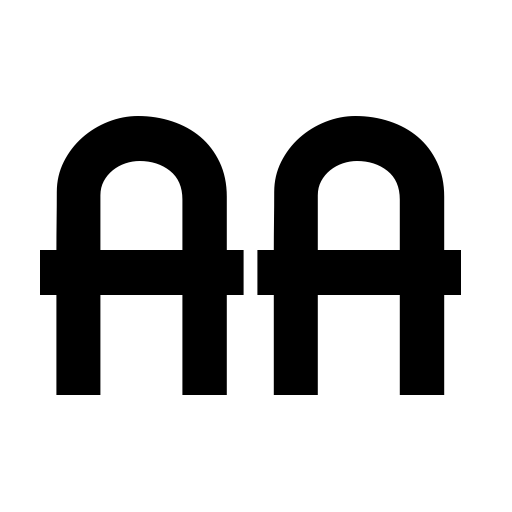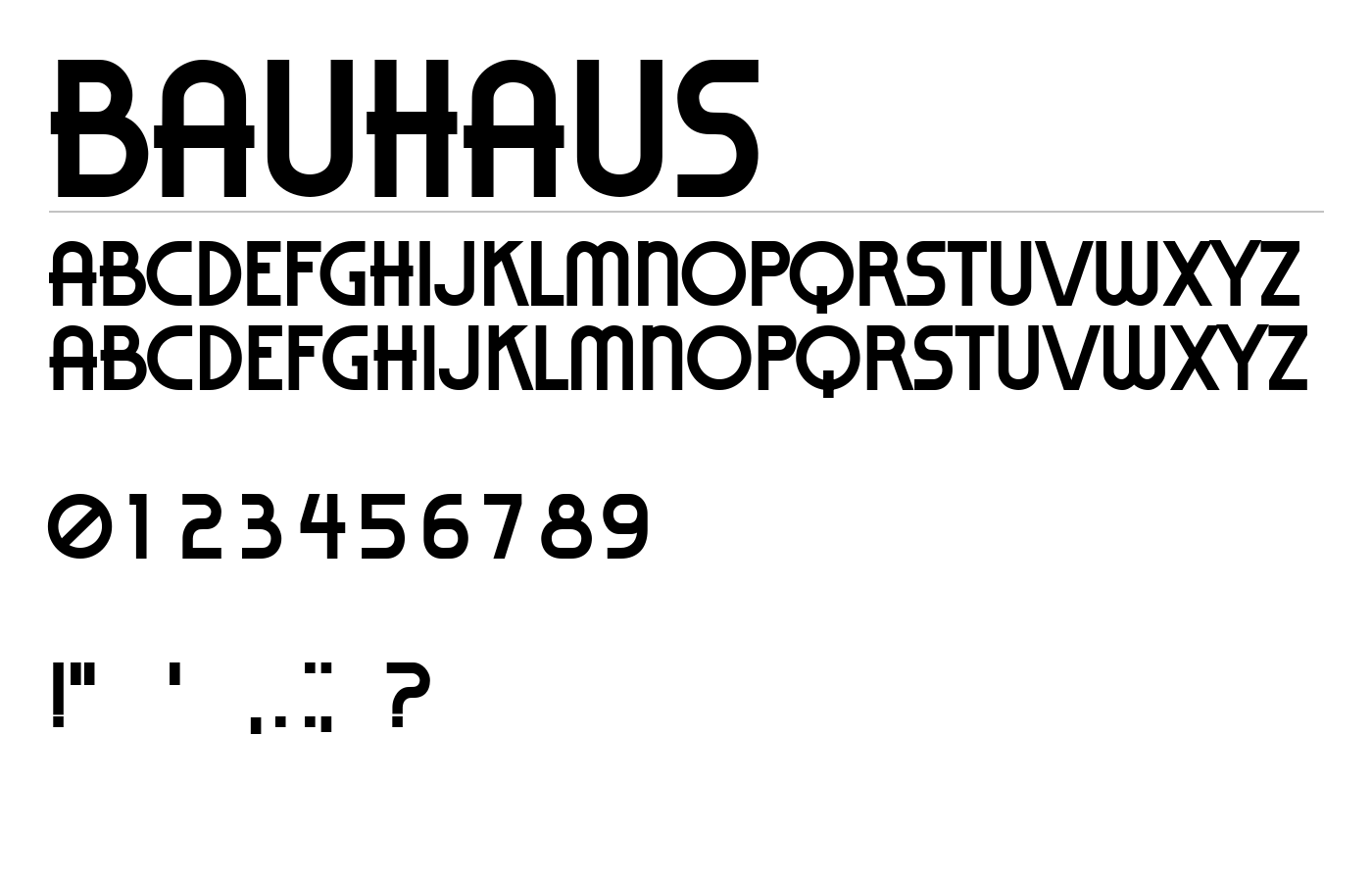
Bauhaus is a distinct sans serif font characterized by its bold weight, geometric shapes, and a modern, minimalist style inspired by the Bauhaus design movement. With its high x-height, tight spacing, and unique letterforms—such as the double vertical lines in H and U, and the circular Q with a centered tail—this font conveys a futuristic, sleek, and somewhat playful personality. Ideal for logos, headlines, and branding in creative or tech-forward industries, Bauhaus stands out with its clean lines and striking, memorable presence.
Bauhaus Font
About Bauhaus Font
| Font family | Bauhaus Font |